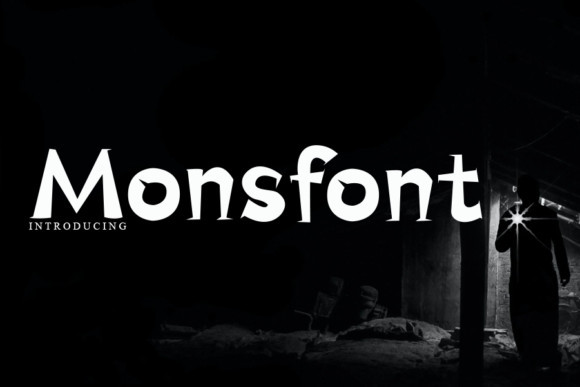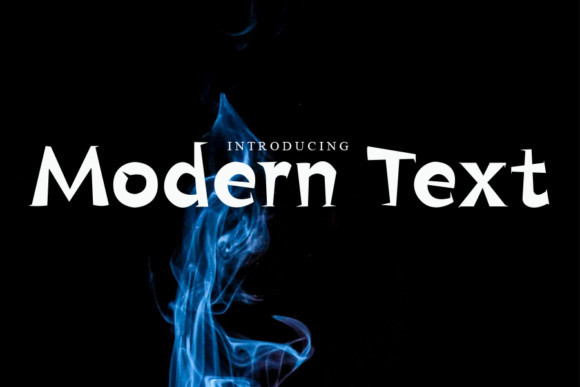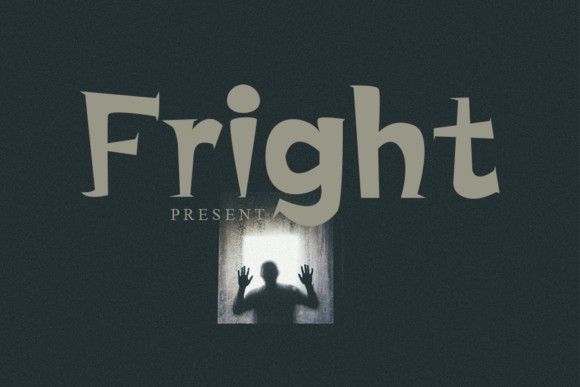
Monsfont Font
Monsfont is a unique and incredibly interesting serif font. It can easily be matched to an incredibly large set of projects, so add it to your creative ideas and notice how it makes them stand out!